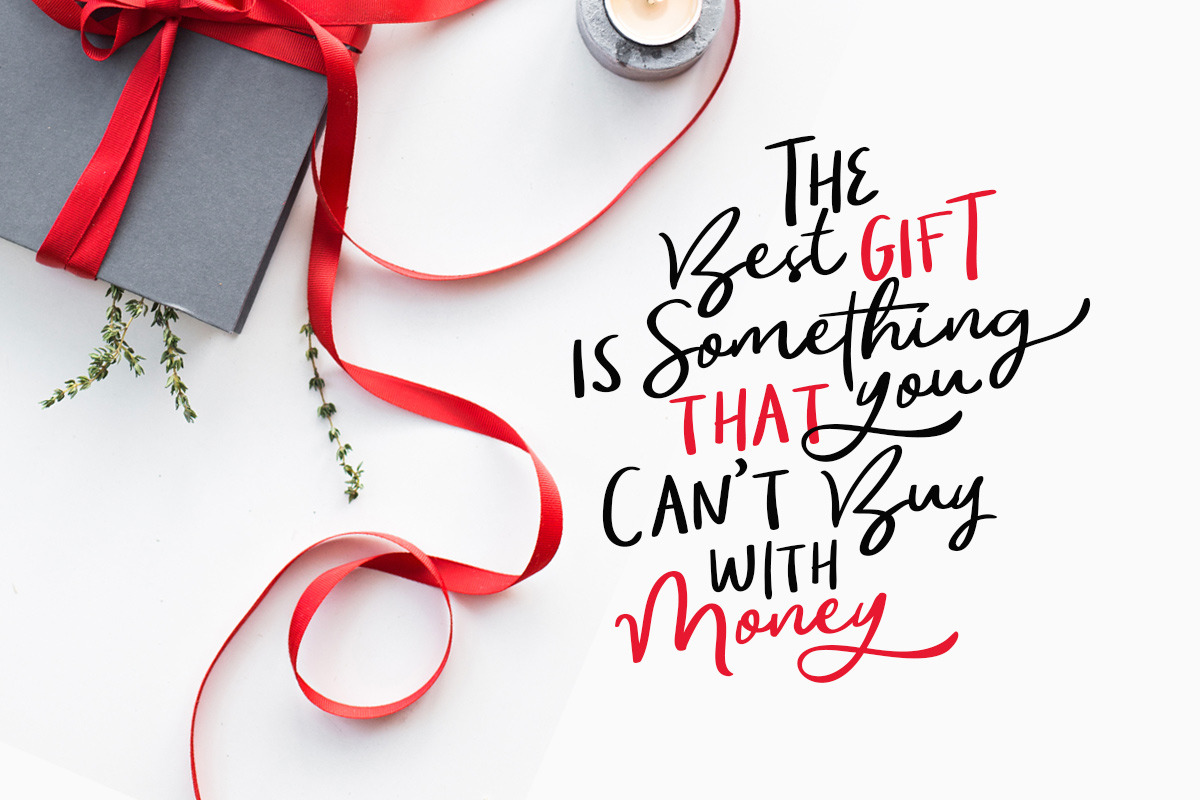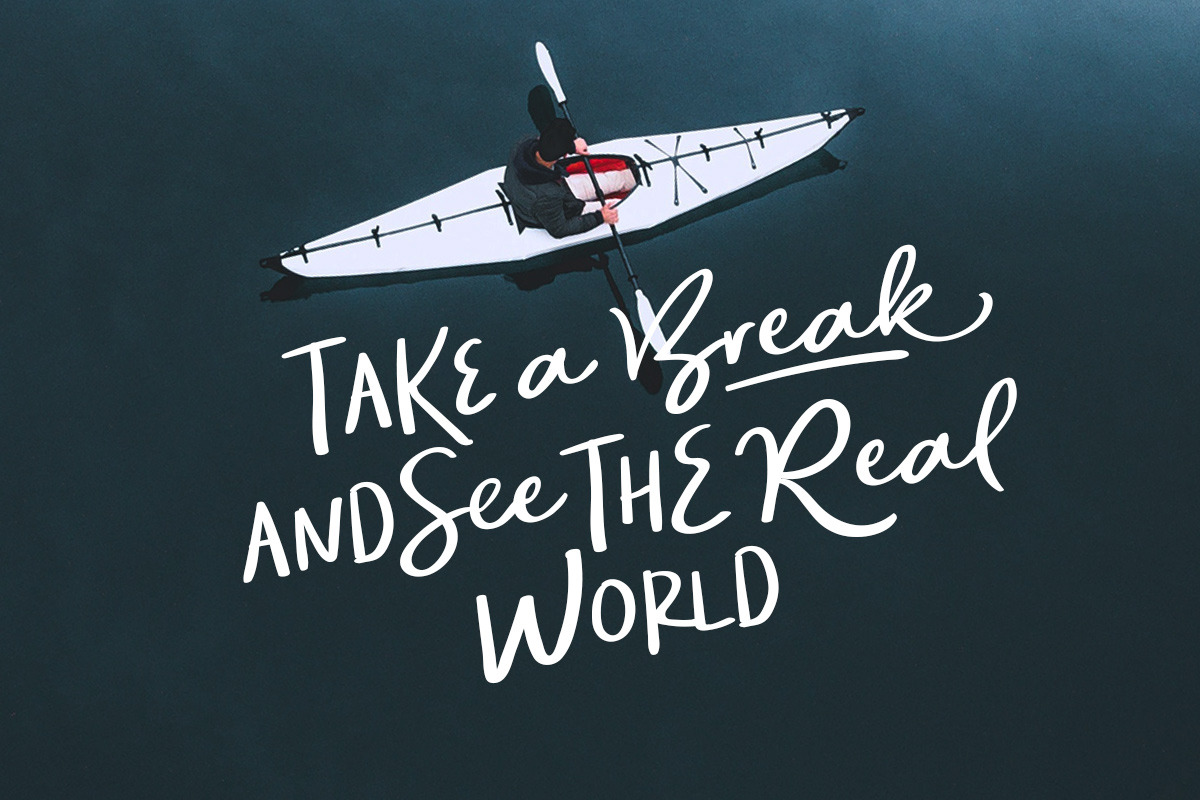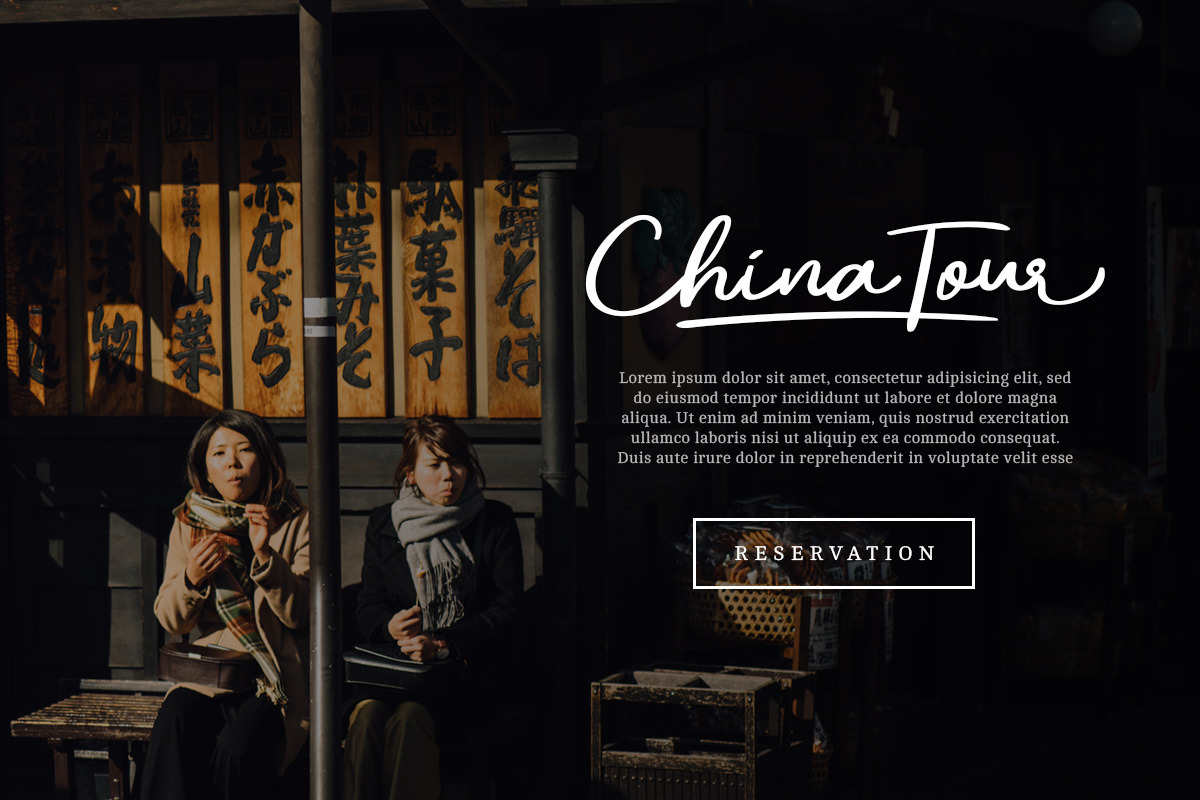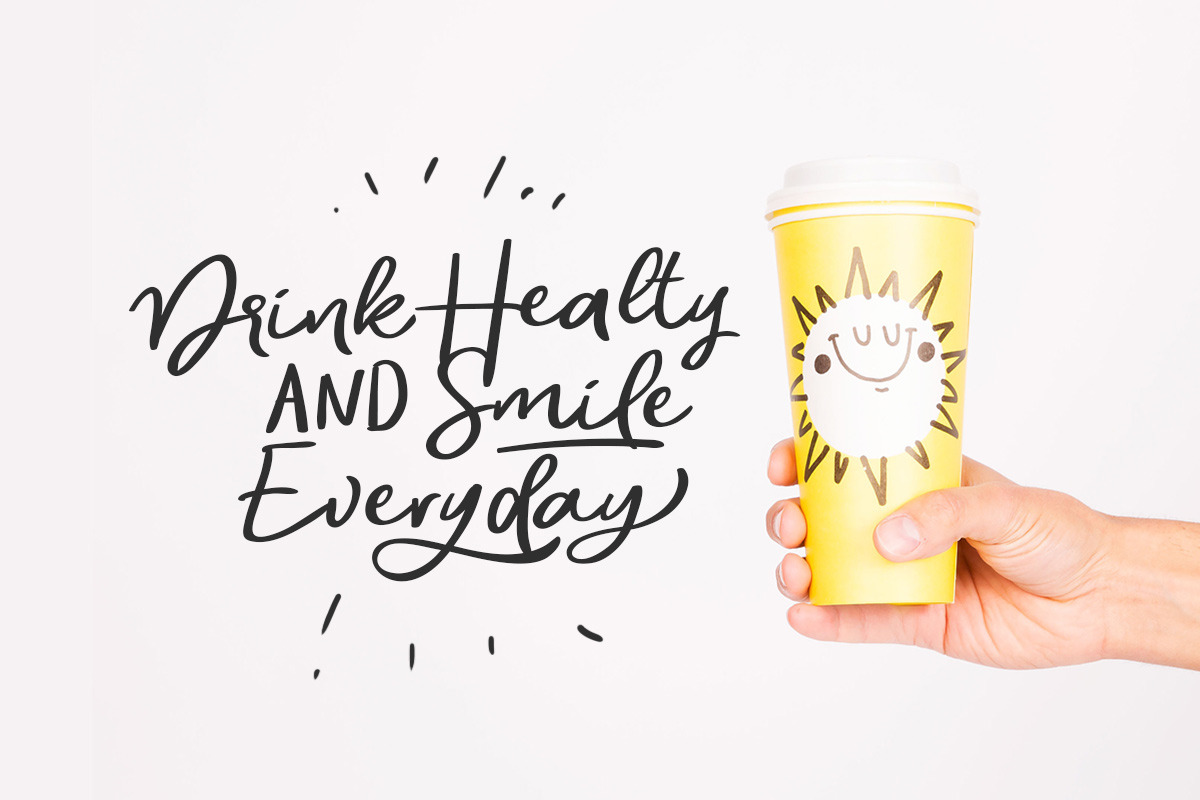
Historia Sky - Font Duo
Introducing, Histeria Sky - My first font duo!
Histeria Sky is handwritten font duo that contain stylistic alternate, swash, etc to create your own customized signature or making a cute quote. This font is also support multi language. This font available in OTF and TTF. Also Support PUA. You can use this font for everything you want!